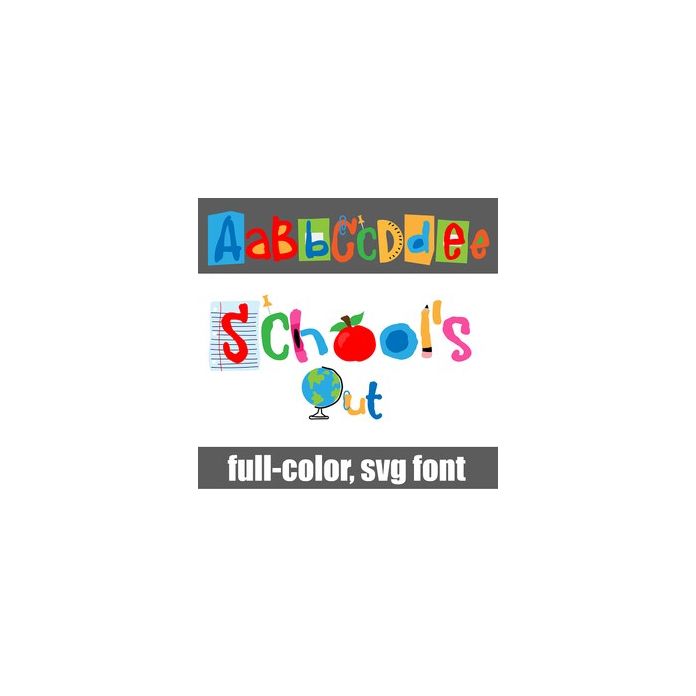
This full-color font features juvenile print and school supplies subbed in for lettering. There is an alt case w/ additional colors you can access through your system or Silhouette's glyph map.